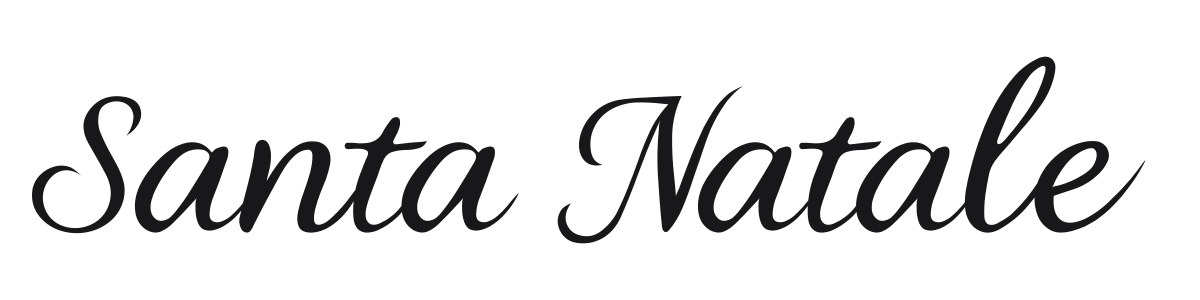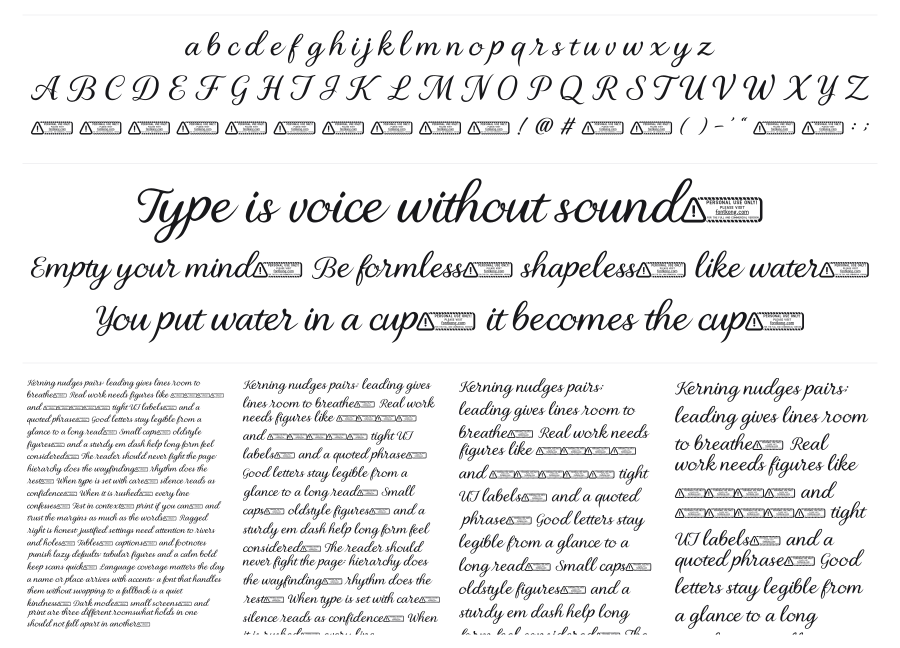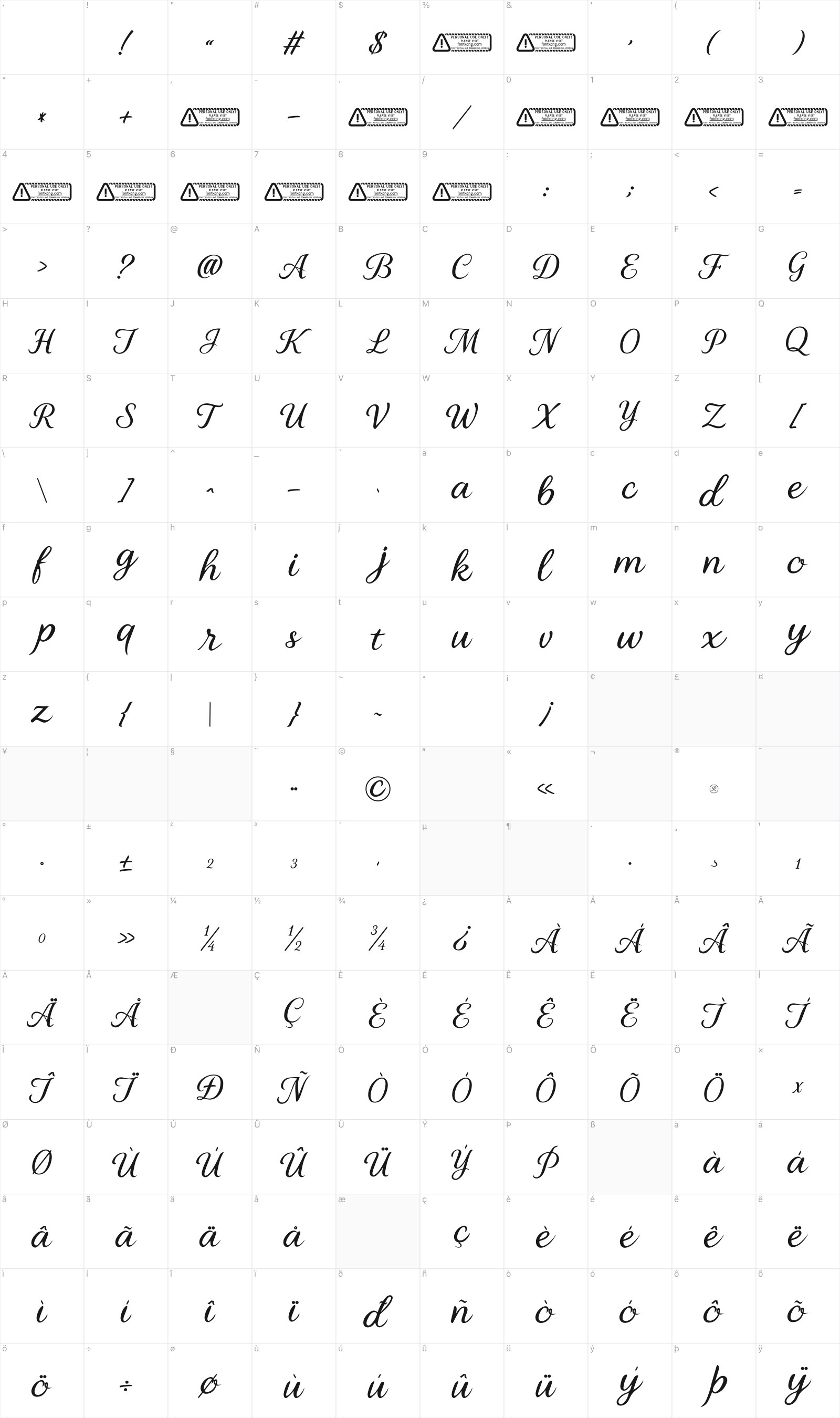
Santa Natale
Santa Natale is a modern connected script with flowing loops and clear calligraphic stroke contrast. Its generous ascenders and descenders give words a natural, energetic sweep that works beautifully in titles, branding, and seasonal packaging. The design sits comfortably between formal elegance and casual warmth.